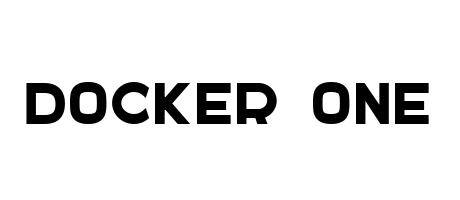
DOCKER ONE
By Slava "Designvamp" Krivonosov
Docker One: A bold, sans-serif typeface exudes confident simplicity. Its clean lines and strong letterforms project a sense of authority and dependability, perfect for headlines and branding demanding attention. Its straightforward design ensures readability even at large scales.